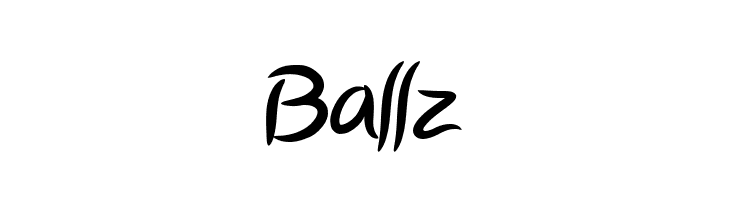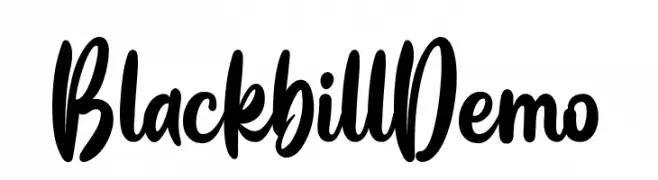
( Fonts by junkohanhero )
A hand-drawn, organic font with tall, narrow characters and a slightly distressed look.
( Fonts by Faraz Ahmad )
A modern, artistic font with elongated, narrow characters and unique shapes.
( Fonts by Ziva Erawan )
A playful, handwritten font with irregular strokes and a casual, whimsical style.
( Fonts by HENRIavecunK )
A classic serif font with elegant, slender characters and distinct serifs.
( Fonts by Corgi Astronaut )
A modern, geometric font with clean lines and a sleek appearance.
( Fonts by EvasUniqueFonts )
A decorative serif font with intricate swirls and flourishes.